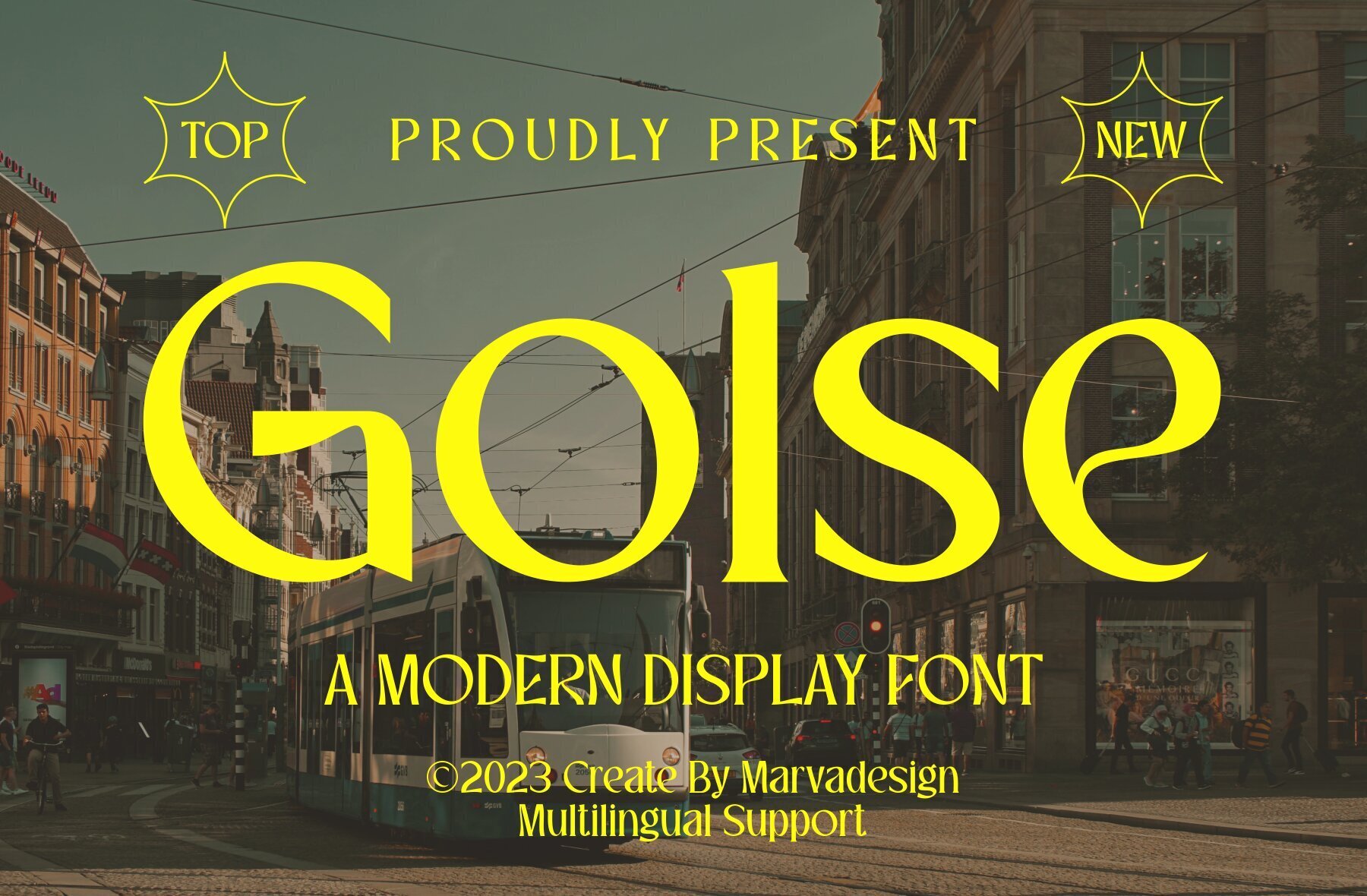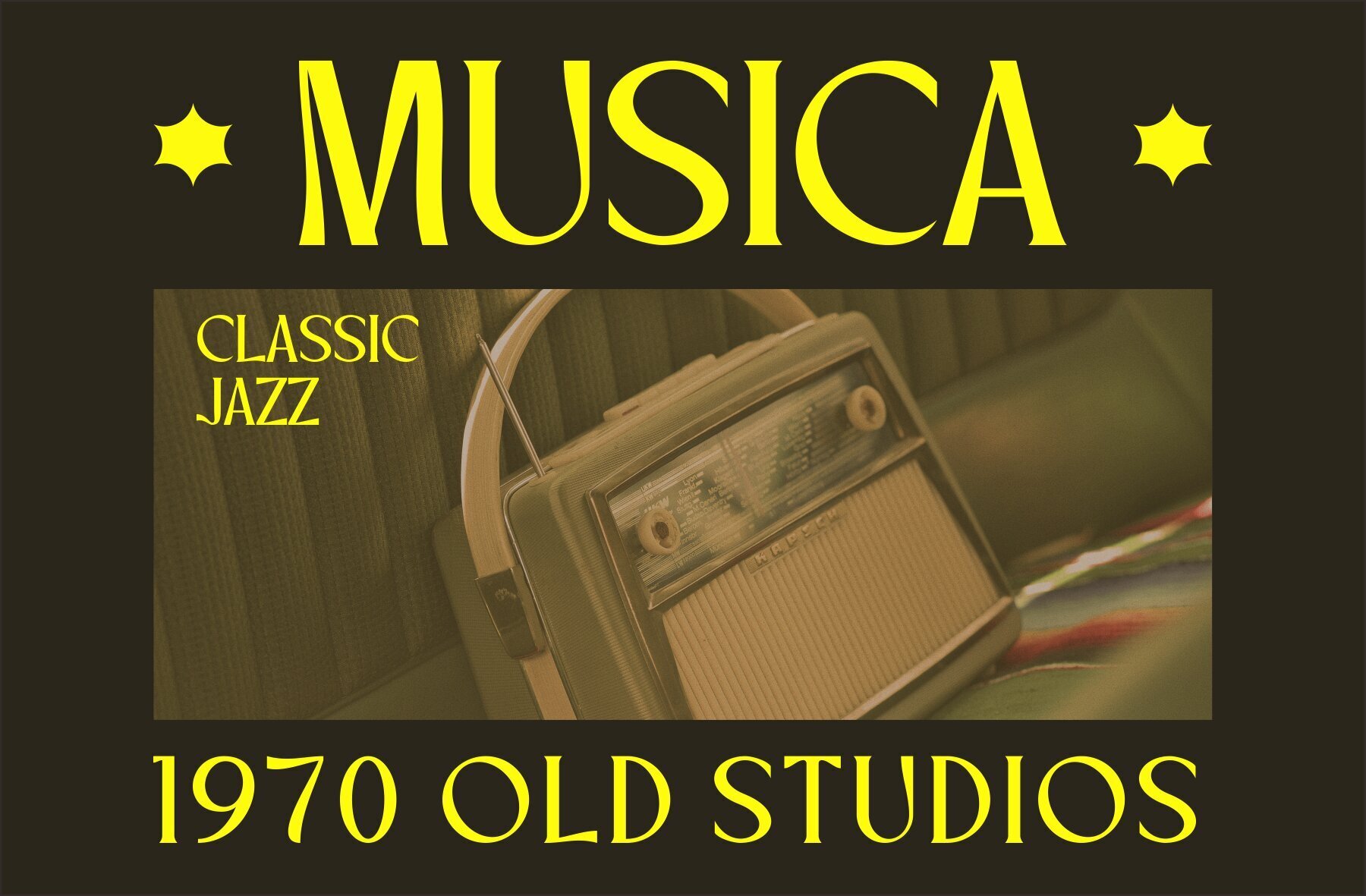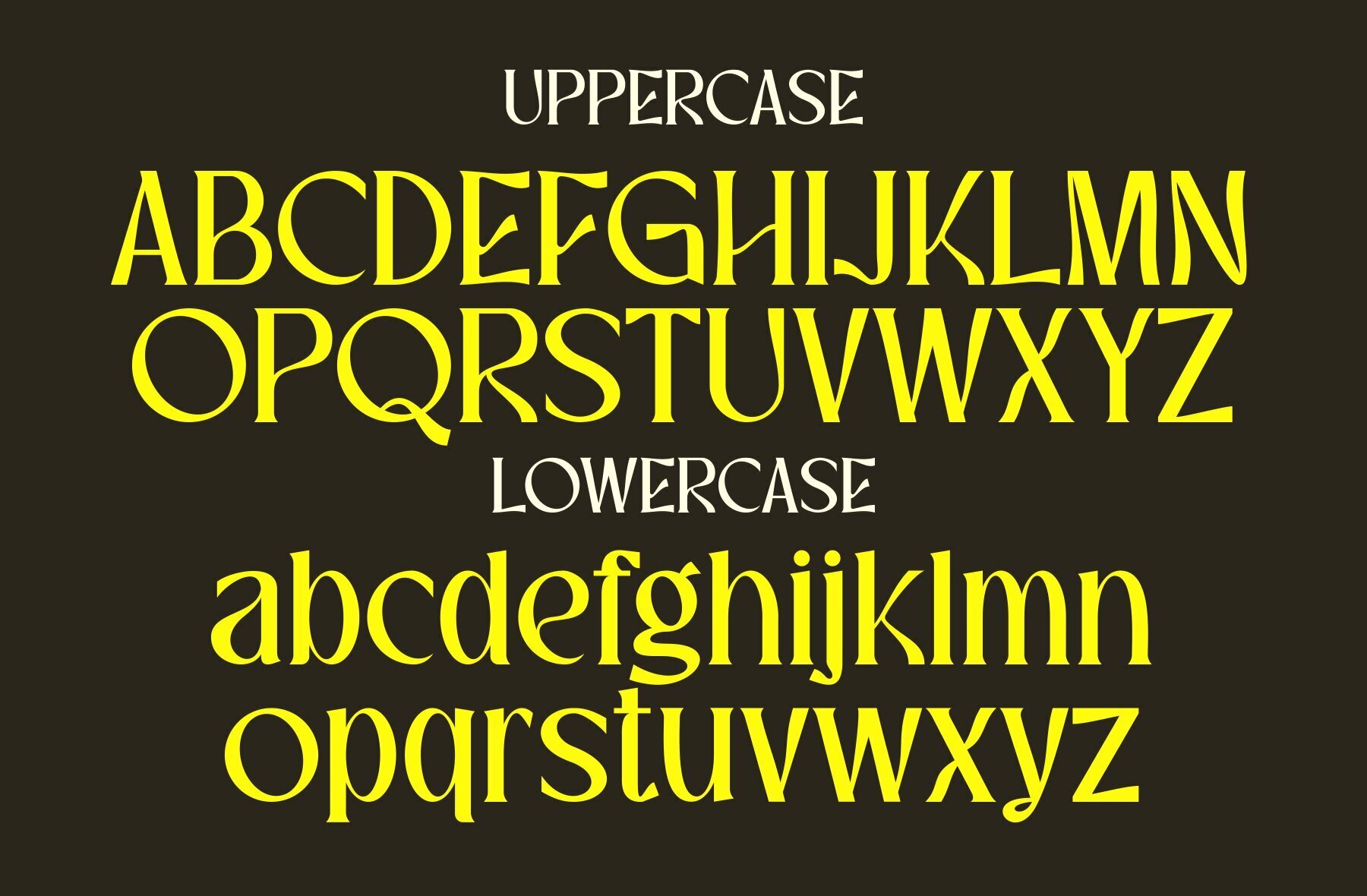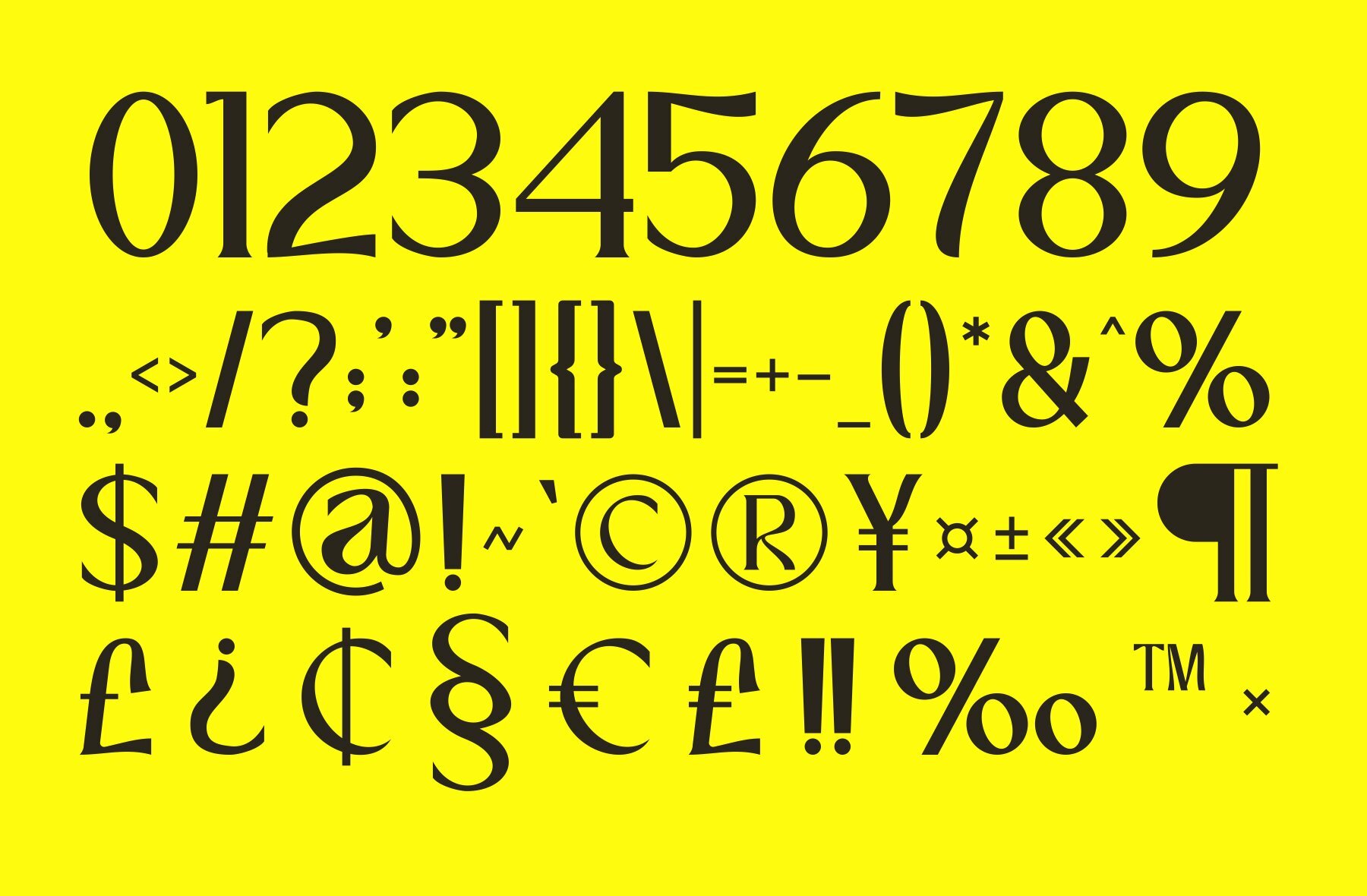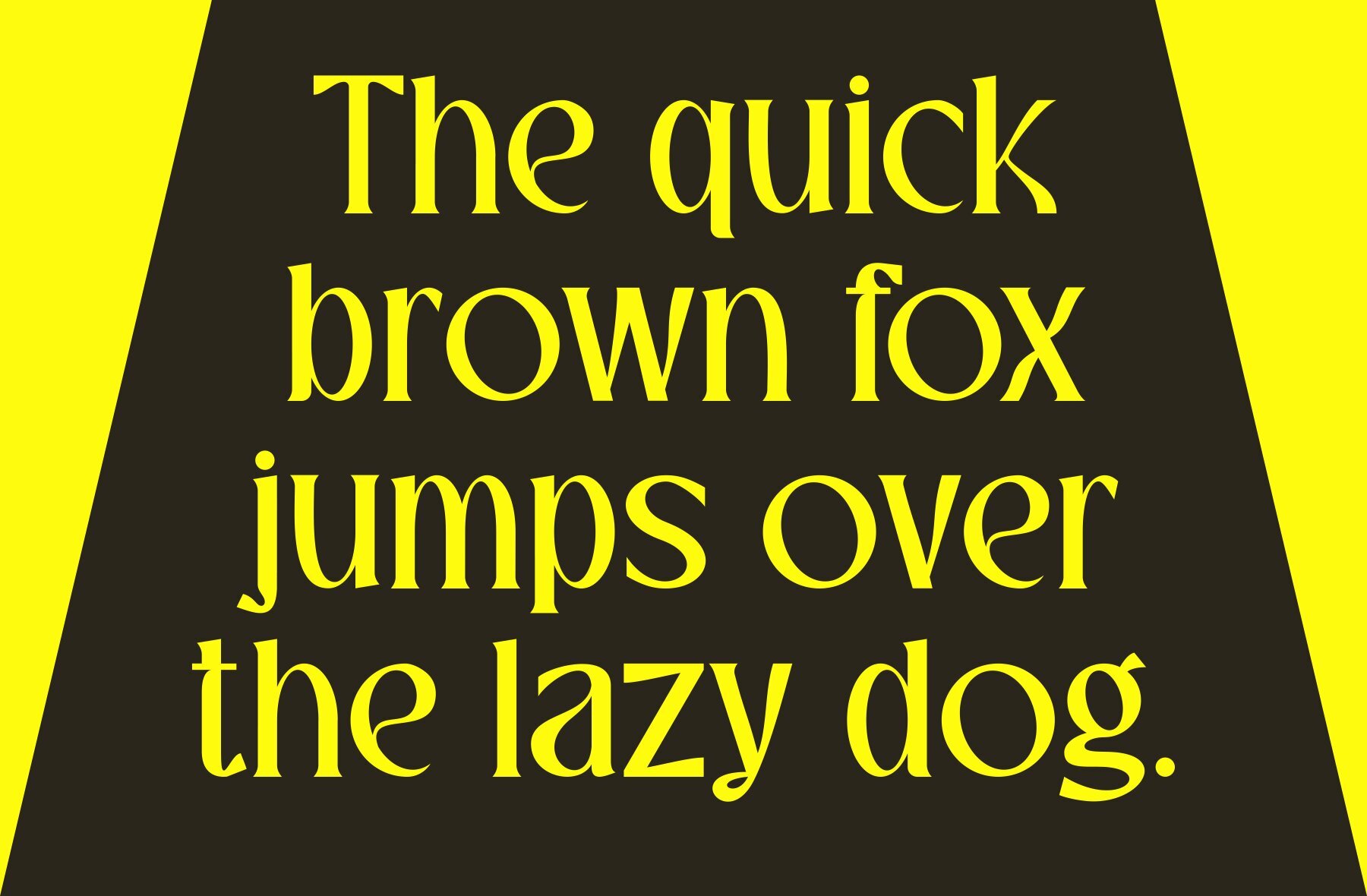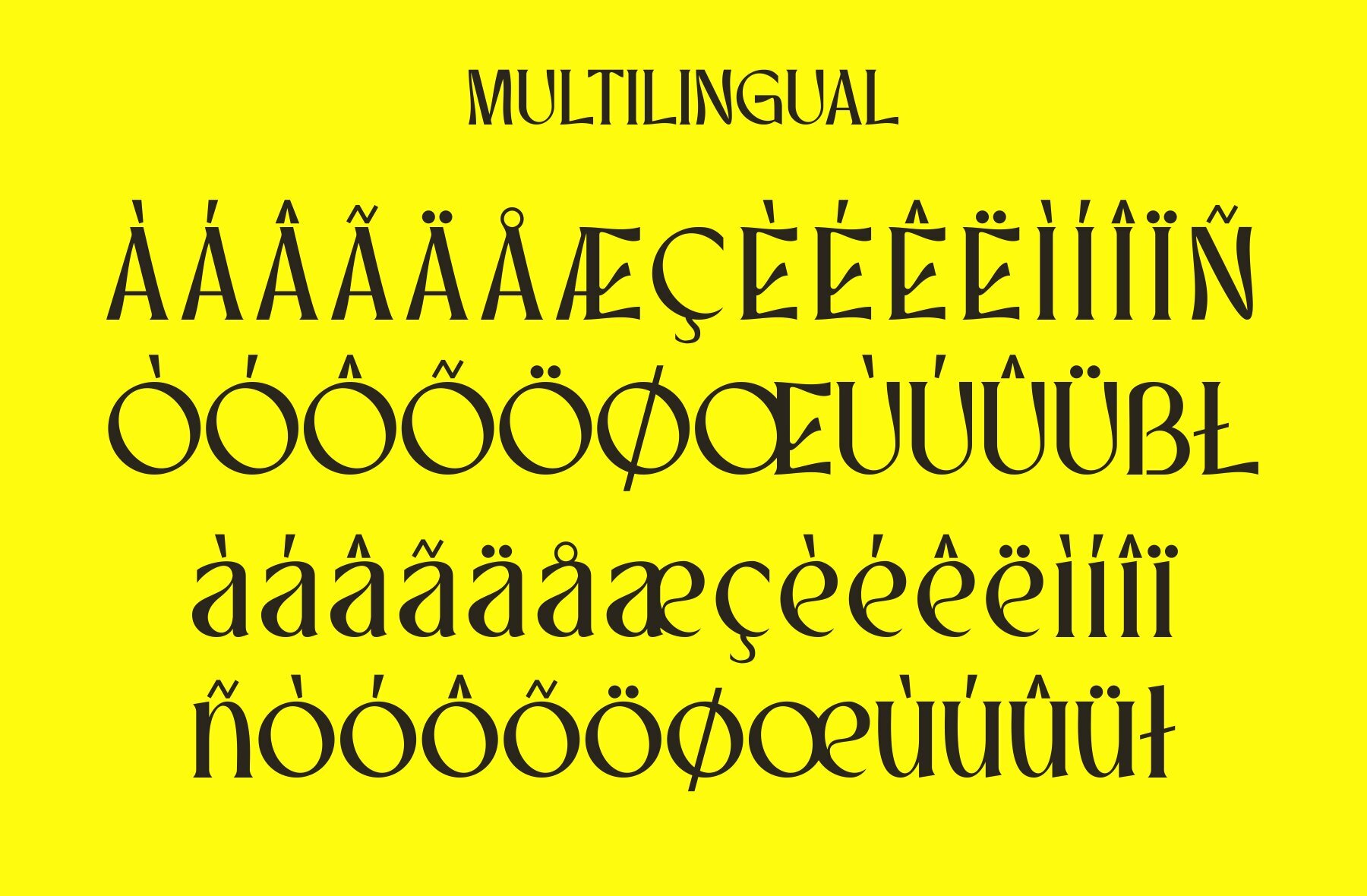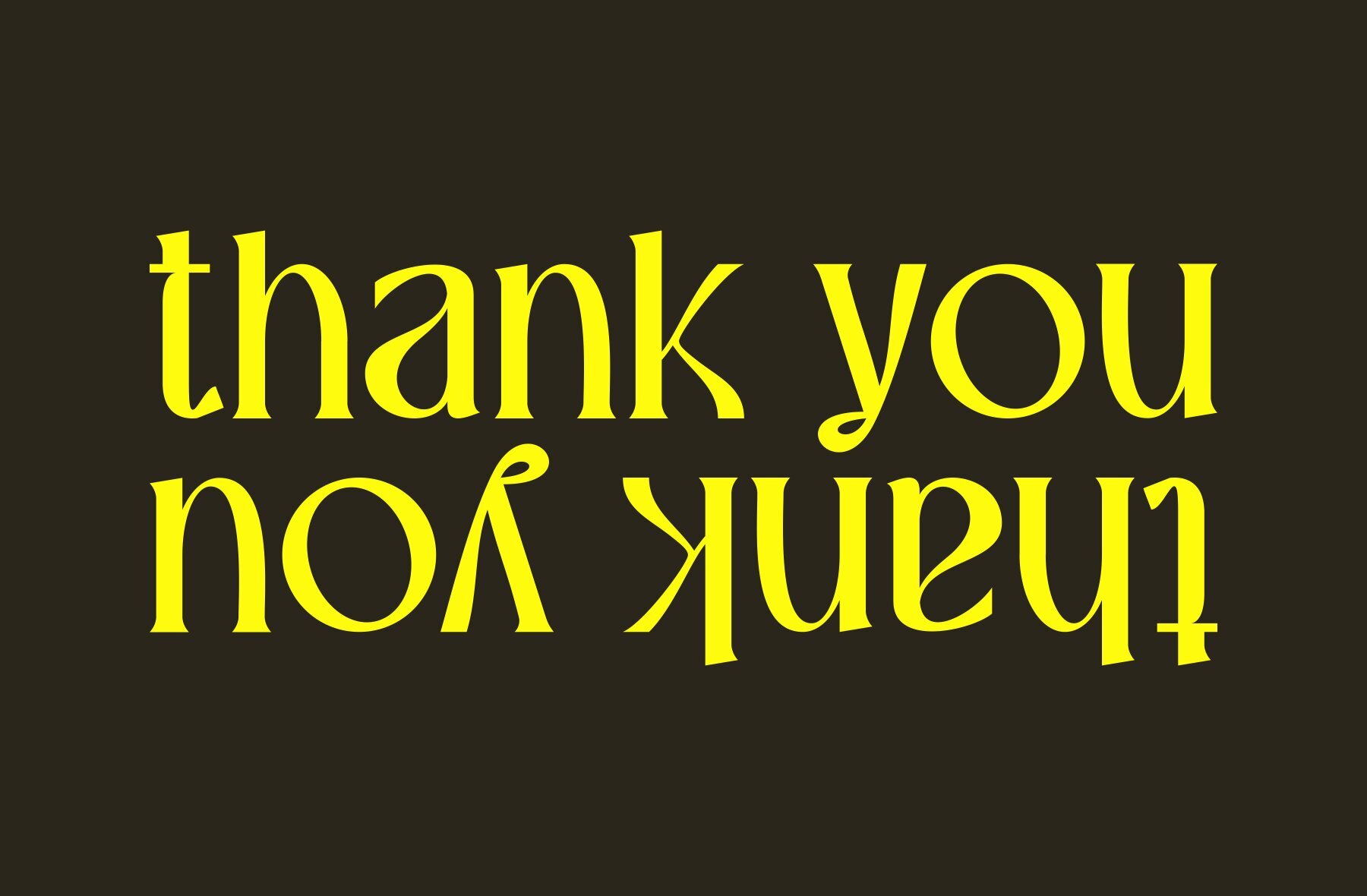
Golse Font
Golse Regular
Golse Font is a modern serif typeface designed to add a touch of authenticity to any project. This display font is perfect for a variety of branding needs, including logos, templates, and much more, standing out in diverse contexts.Golse: A Contemporary Serif Font for Versatile Branding